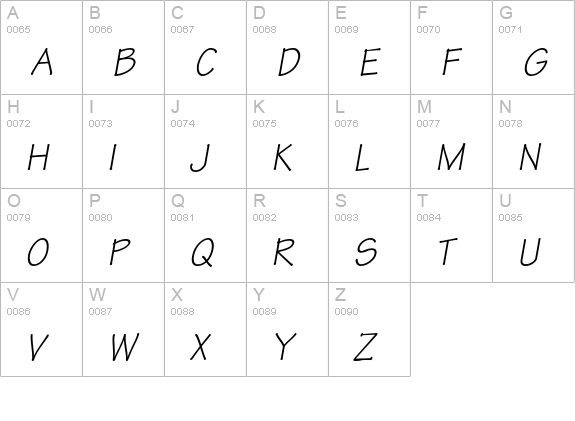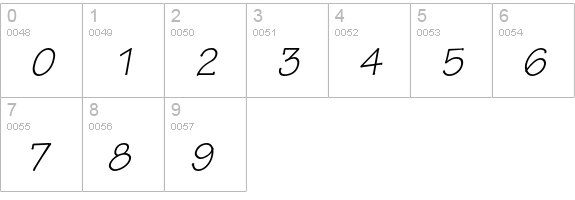
Tekton Pro Oblique Font Details
Tekton Pro Oblique is a distinctive, italic variant in the Tekton typeface family \xE2\x80\x94 well suited to design and typography projects.
Tekton Pro Oblique is a dynamic and versatile font that effortlessly combines boldness with elegance. With its slanted and slightly tilted design, this font exudes a sense of movement and energy, making it perfect for projects that require a touch of modernity and sophistication. The sleek and streamlined letterforms of Tekton Pro Oblique create a visually striking impact, making it an ideal choice for eye-catching headlines, attention-grabbing titles, and captivating logos. Its unique oblique angle adds a subtle twist to each character, giving them a sense of depth and dimension that is sure to leave a lasting impression. Whether you are designing a poster, creating a brochure, or crafting a website, Tekton Pro Oblique offers a wide range of versatility. Its clean and clear lines ensure legibility, even at smaller font sizes, making it suitable for both print and digital media. One of the most remarkable aspects of Tekton Pro Oblique is that it is freely available to download at FontsMarket.com. This means that you can effortlessly incorporate this stunning font into your projects without worrying about additional costs. Its availability as a free download opens up a world of possibilities, allowing you to explore the full potential of this remarkable typeface. With its modern aesthetic and effortless style, Tekton Pro Oblique is a font that will elevate your designs to new heights. Its versatility, legibility, and captivating oblique angle make it a standout choice for any project that requires a touch of sophistication and flair. Download Tekton Pro Oblique from FontsMarket.com today and unlock the true potential of your design endeavors.